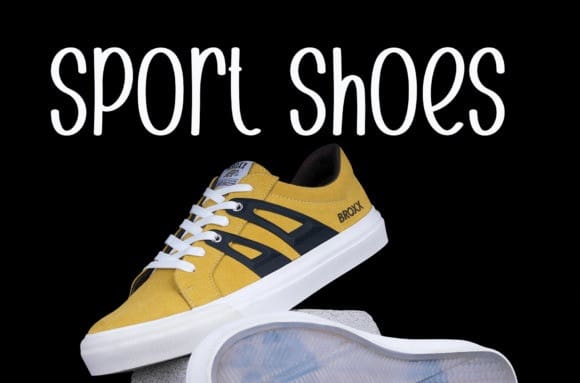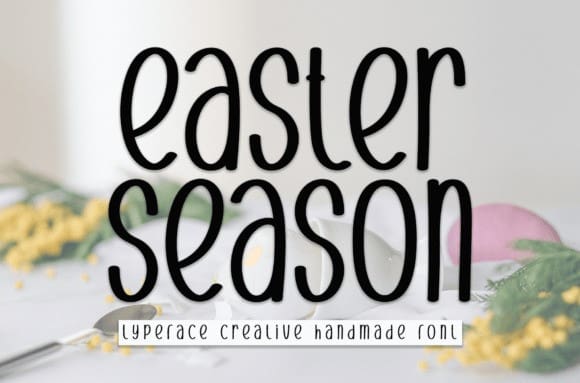
Easter Season Font
Easter Season Font is a sweet and friendly handwritten font. Fresh and neat, this font is ideal for writing wedding invitations, cards, or any other design that might need a fun touch!